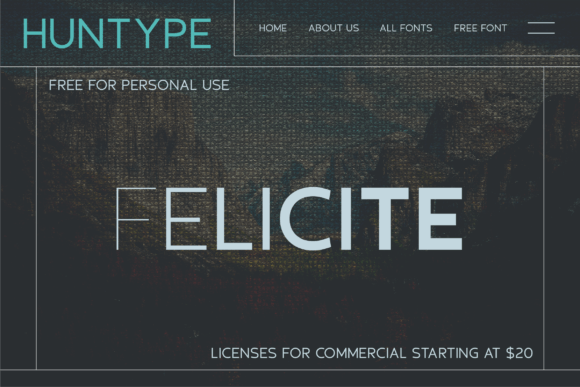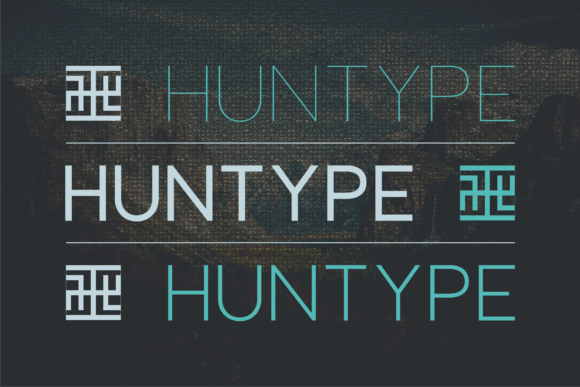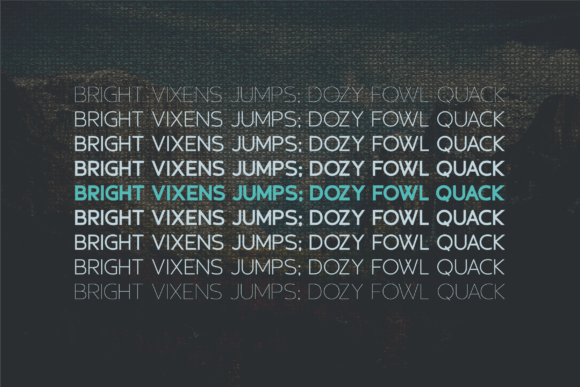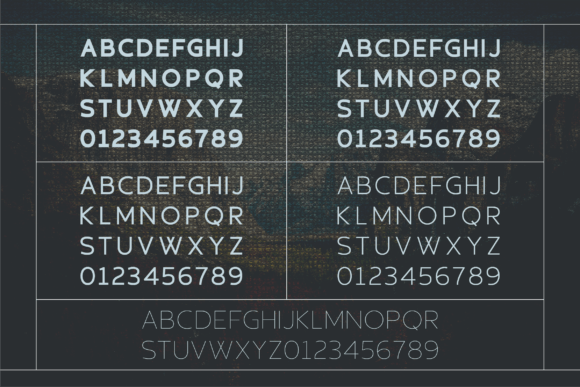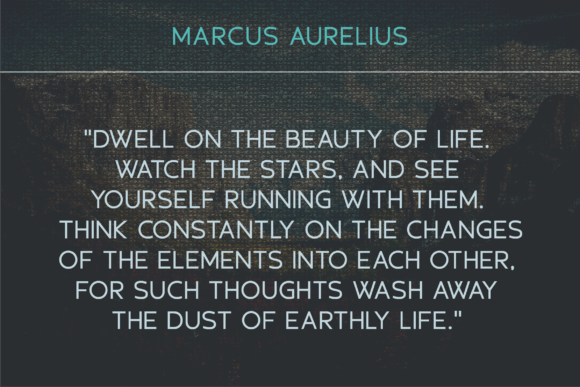
Introducing Felicite Sans Serif Family: Elevate Your Designs with Elegance and Versatility
In the world of typography, a font can make or break a design. It’s the foundation upon which creativity is built, and the right choice can elevate a project from ordinary to extraordinary. This is where Felicite Sans Serif Family comes into play, a meticulously crafted font family that epitomizes elegance, modernity, and versatility. With its five distinct weights—THIN, LIGHT, REGULAR, BOLD, and BLACK—the Felicite Family offers a wide range of creative possibilities, making it the perfect choice for designers and content creators.
Aesthetic Appeal and Versatility
Felicite Sans Serif Family is designed to cater to the diverse needs of modern designers. Its sleek and clean lines exude a sense of sophistication and contemporary style, making it ideal for projects that demand a touch of elegance. From the delicate and subtle THIN and LIGHT weights to the robust and commanding BOLD and BLACK weights, this font family provides the flexibility to adapt to any design requirement. Whether you’re aiming for a subtle and delicate touch or a bold and impactful statement, Felicite Family ensures your projects will shine with distinction.
Seamless Integration Across Various Platforms
In today’s digital age, versatility isn’t just about aesthetics; it’s also about functionality. Felicite Sans Serif Family is designed to seamlessly integrate across various platforms and applications. Whether you’re working on a website, a mobile app, a print project, or a digital advertisement, this font family ensures consistency and clarity, enhancing the overall user experience. Its compatibility with different devices and operating systems makes it a reliable choice for designers who need their work to look impeccable across the board.
Why Choose Felicite Sans Serif Family?
• Elegance and Modernity: Felicite brings a perfect blend of elegance and modernity, making it suitable for projects that require a contemporary look.
• Versatility: With five distinct weights, designers have the flexibility to use Felicite in a wide range of applications, from subtle body text to bold headlines.
• Readability: The font’s clear and clean design ensures excellent readability, making it perfect for both digital and print media.
• Wide Applicability: Ideal for branding, advertising, web design, publishing, and any project that demands high-quality typography.
Applications of Felicite Sans Serif Family
Felicite Sans Serif Family’s adaptability makes it suitable for a myriad of design projects. Here are a few examples:
• Branding and Logo Design: Create memorable and impactful brand identities with the font’s range of weights.
• Web and Mobile App Design: Enhance user experience with a font that offers clarity and sophistication.
• Advertising and Marketing Materials: Stand out with bold and eye-catching typography that captures attention.
• Print Media: Elevate magazines, brochures, and books with a font that combines elegance and readability.
Felicite Sans Serif Family is more than just a font—it’s a design solution that caters to the evolving needs of modern designers and content creators. Its elegant and modern aesthetic, combined with its versatility and readability, makes it an invaluable asset for any project. Whether you’re a seasoned designer or a DIY enthusiast, Felicite offers the tools to bring your creative visions to life with style and sophistication. Embrace the power of Felicite Sans Serif Family and discover a world of limitless design possibilities.
With Felicite Sans Serif Family, you’re not just choosing a font; you’re unlocking a new dimension of creative potential. Make the most of your designs with a font family that’s as versatile as it is beautiful.